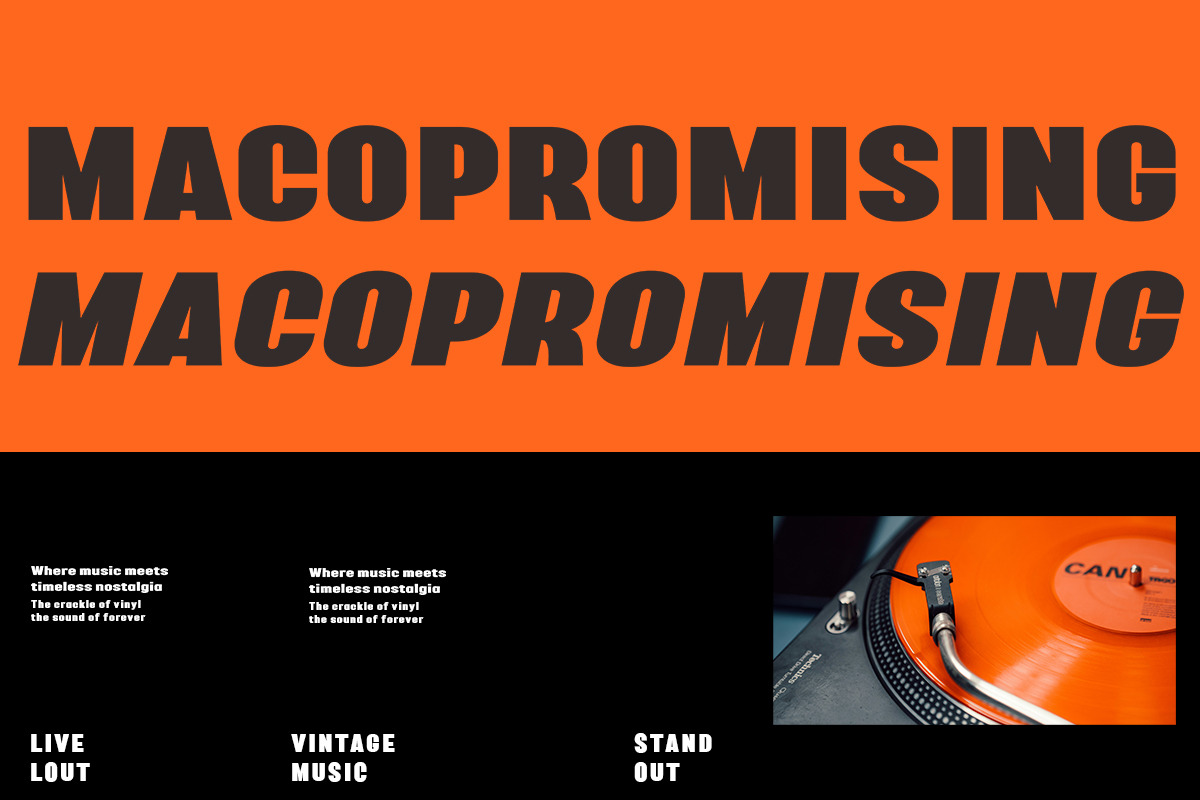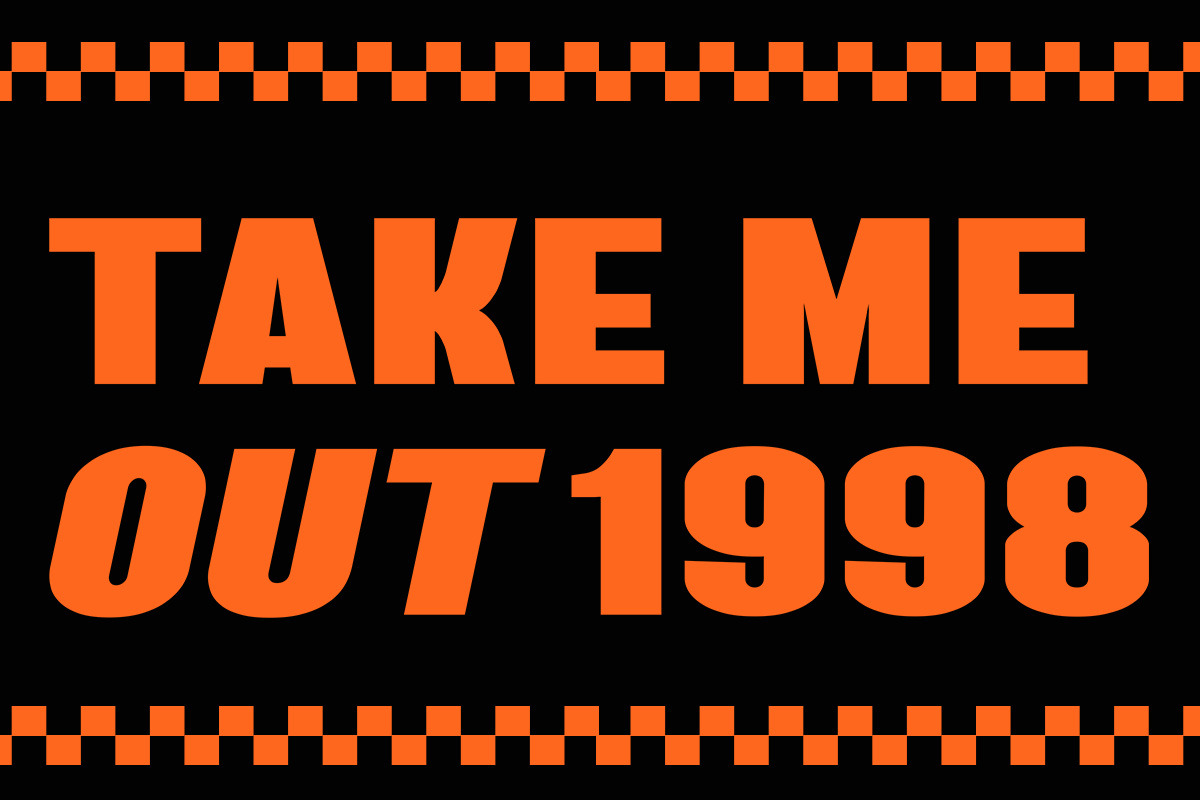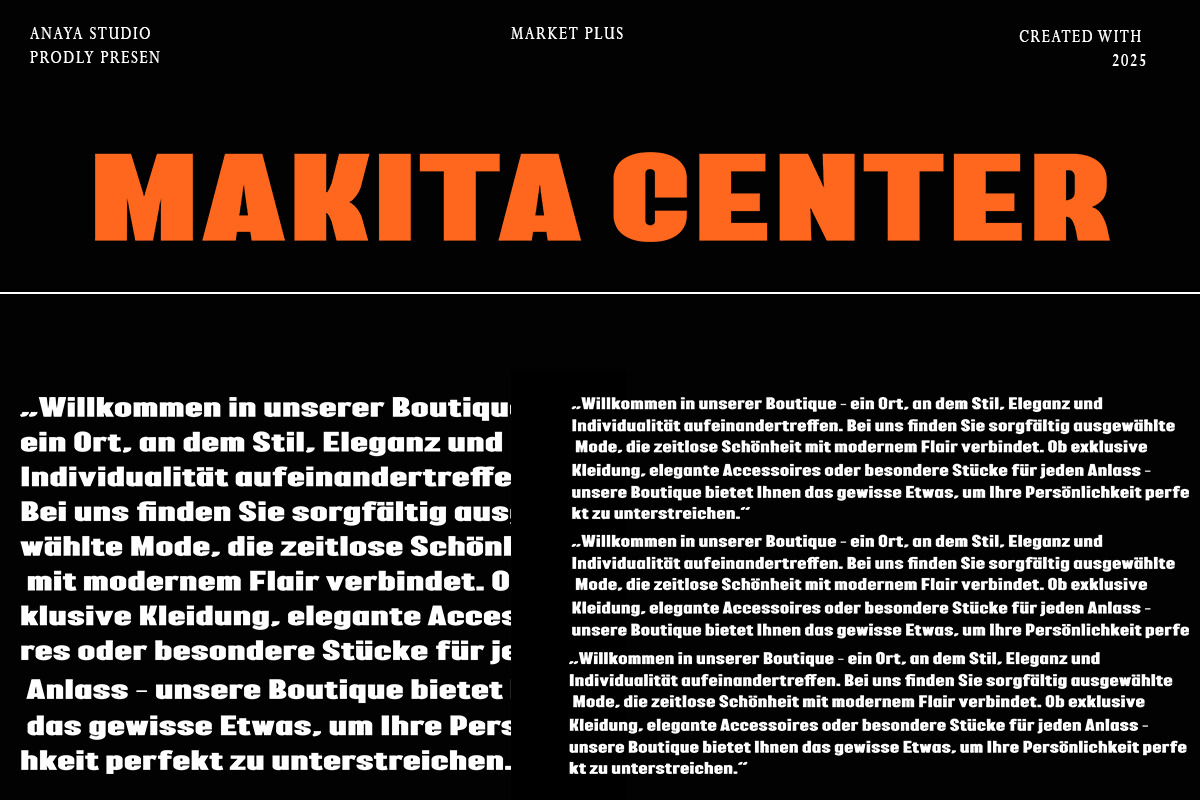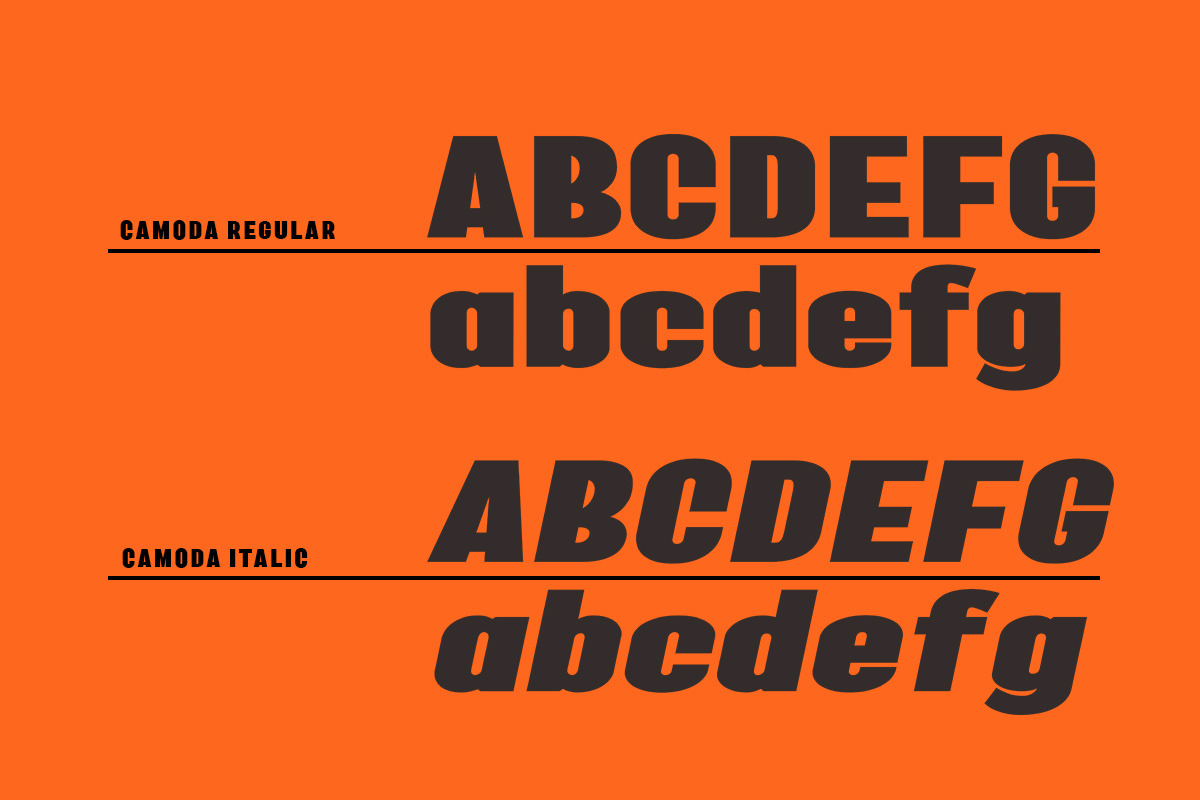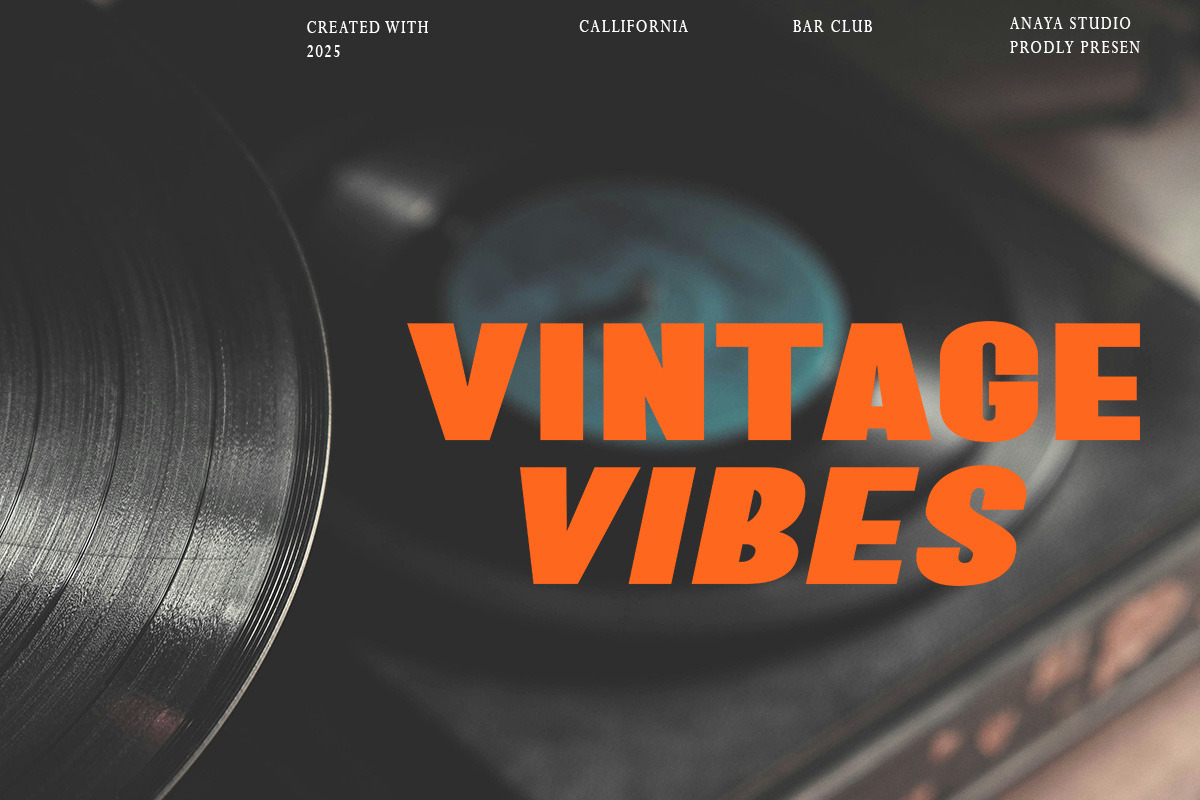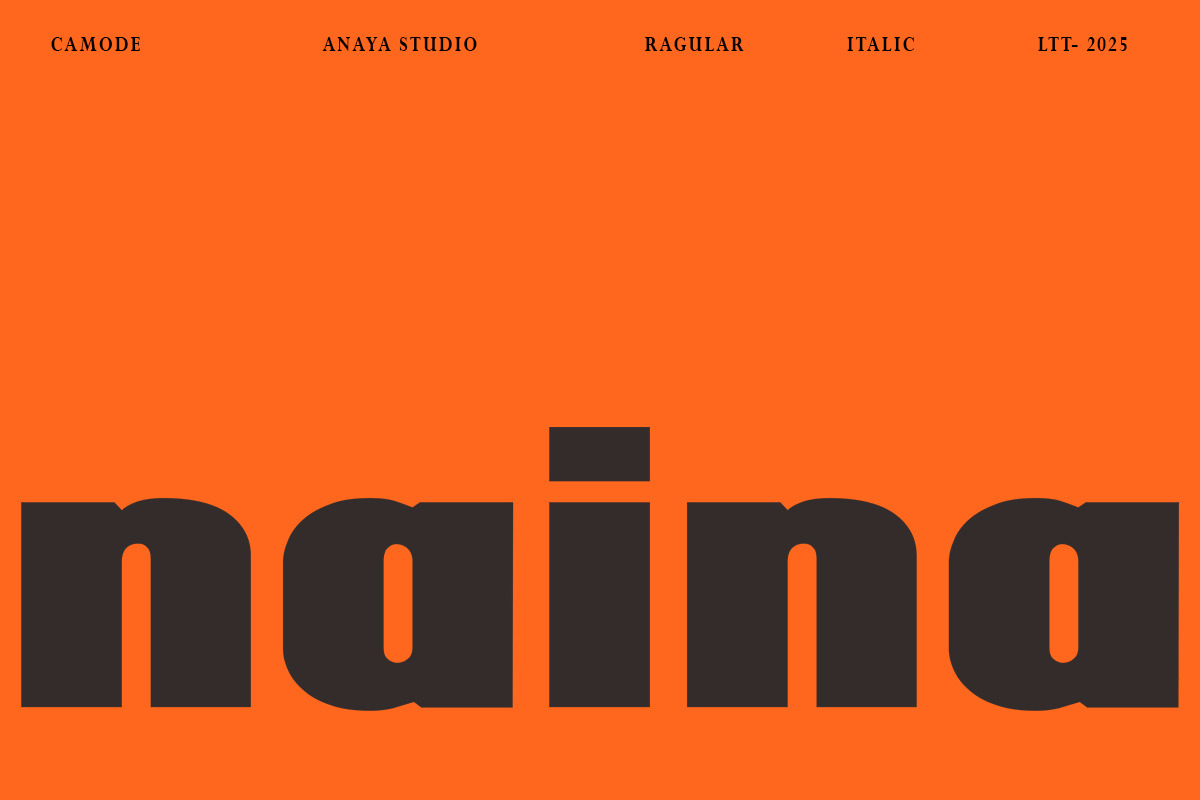
Camode
Camoda is a bold, rounded sans-serif typeface with a bubbly and playful personality. Designed to grab attention while remaining friendly and easy to read, Camoda is perfect for branding, kids-related products, food packaging, poster headlines, and bold advertising.
Camoda features fun ligatures, multilingual support, punctuation, and numerals — making it both expressive and functional. Its heavy, geometric curves and consistent rhythm give it a confident look that works especially well in high-impact contexts like social media graphics, food brands, and loud typographic layouts.